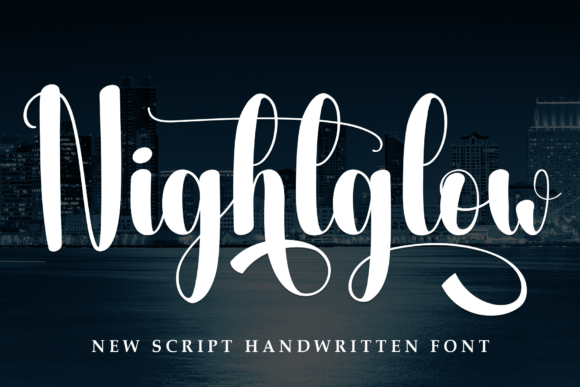
Journey into the enchanting realm of Nightglow Font, a whimsical handwritten masterpiece crafted by Roronoa zoro.S.P.D. Bask in the beauty of its graceful strokes and charming imperfections that infuse life and authenticity into your creative projects.
Immerse yourself in the world of Nightglow Font, a captivating script font family that radiates individuality and charm. Its playful and energetic style adds a touch of whimsy to any project, making it the perfect choice for those seeking to make a bold statement.
Unleash your creativity and explore endless possibilities with Nightglow Font. Its versatility knows no bounds, whether you're crafting captivating logos, designing eye-catching invitations, or creating stunning social media graphics. Let your imagination soar and let Nightglow Font guide you on a journey of self-expression and artistic brilliance.
With Nightglow Font, you'll captivate your audience and leave a lasting impression. Its unique character set, including PUA-encoded glyphs, provides endless opportunities for customization and personalization. Embrace the power of handwritten artistry and let Nightglow Font transform your creative visions into tangible masterpieces.
Dive into the world of Nightglow Font and experience the magic of handwritten artistry. Its elegant curves and lively strokes create a visual symphony that dances across your designs. Experience the joy of creating projects that exude warmth, personality, and a touch of nostalgia.